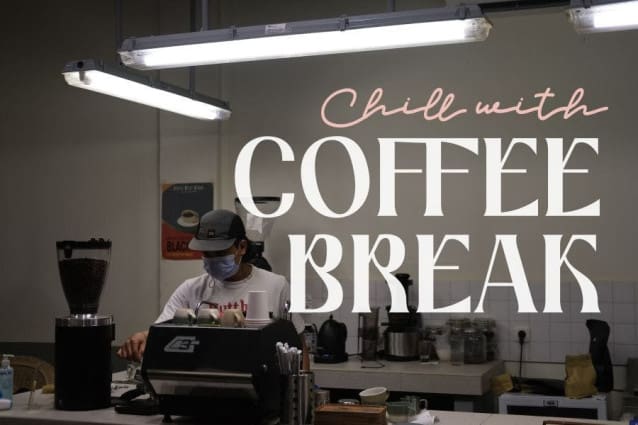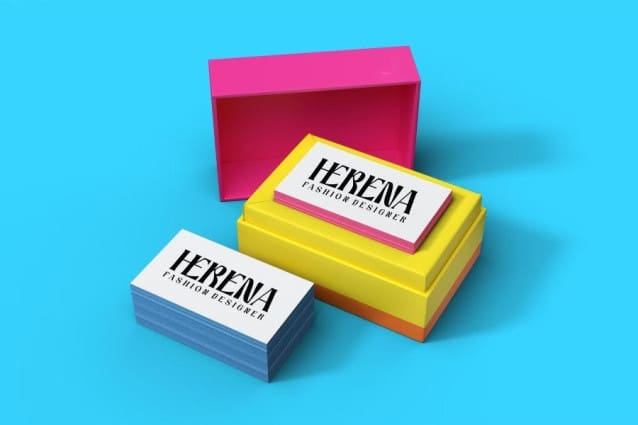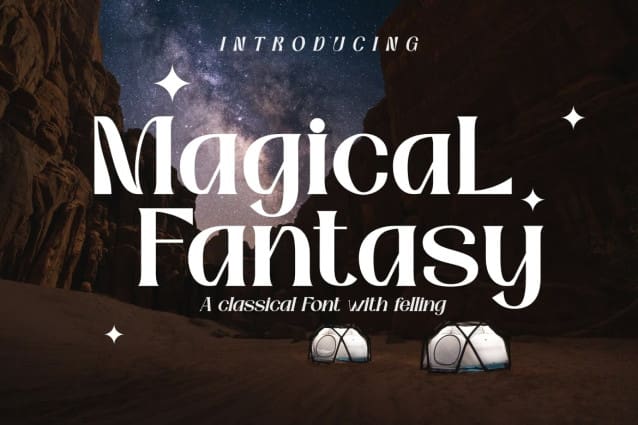
Magical Fantasy Font
Magical Fantasy Font, this collection of sSerif is perfect for personal branding. It was made with the intention to be used for your personal branding. But, this works well for many applications. Everything from personal branding, logos, name tag, handwritten quotes, product packaging, merchandise, social media & greeting cards. photography signature, advertising could benefit from this collection of these bold signature fonts.